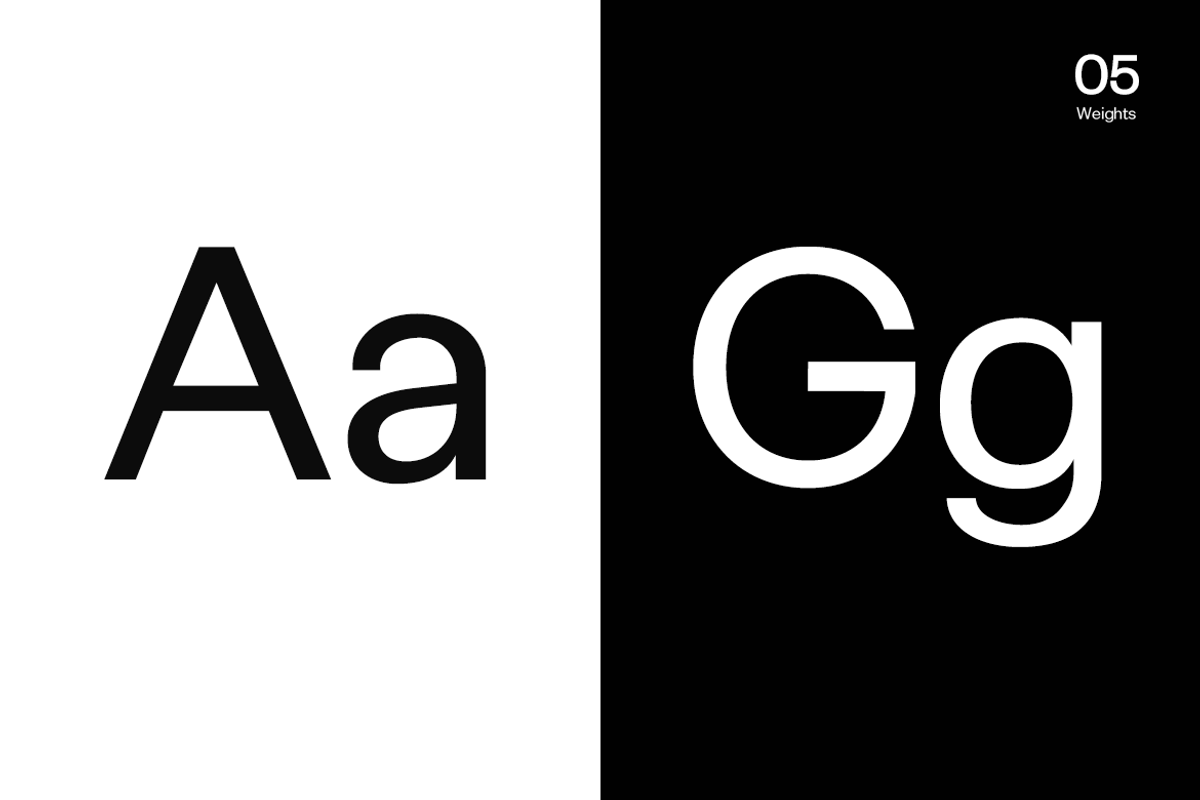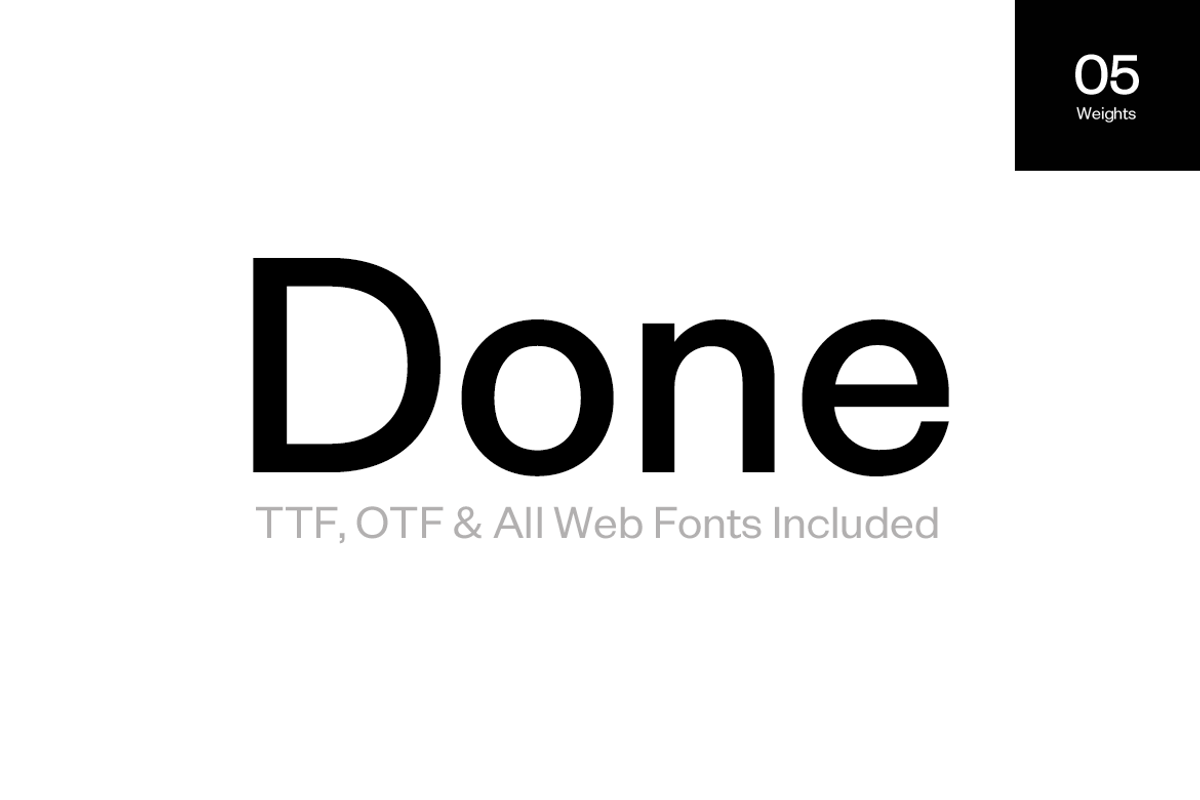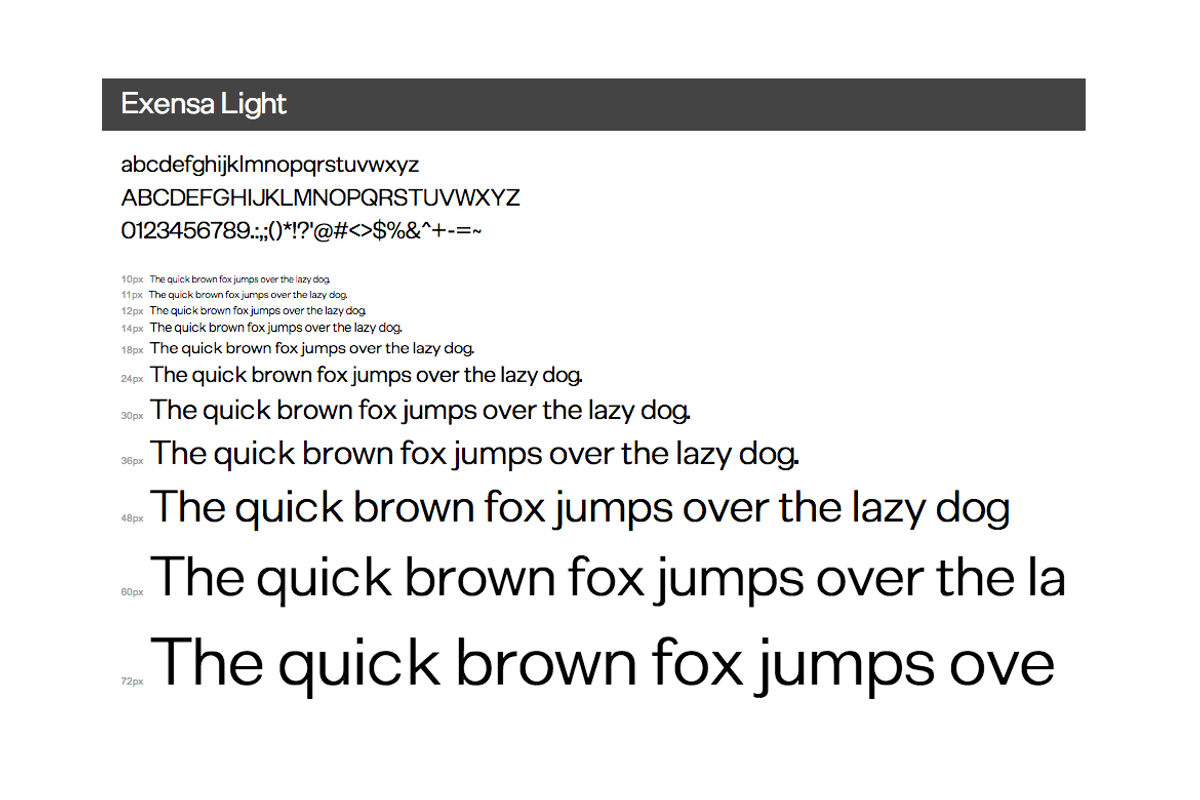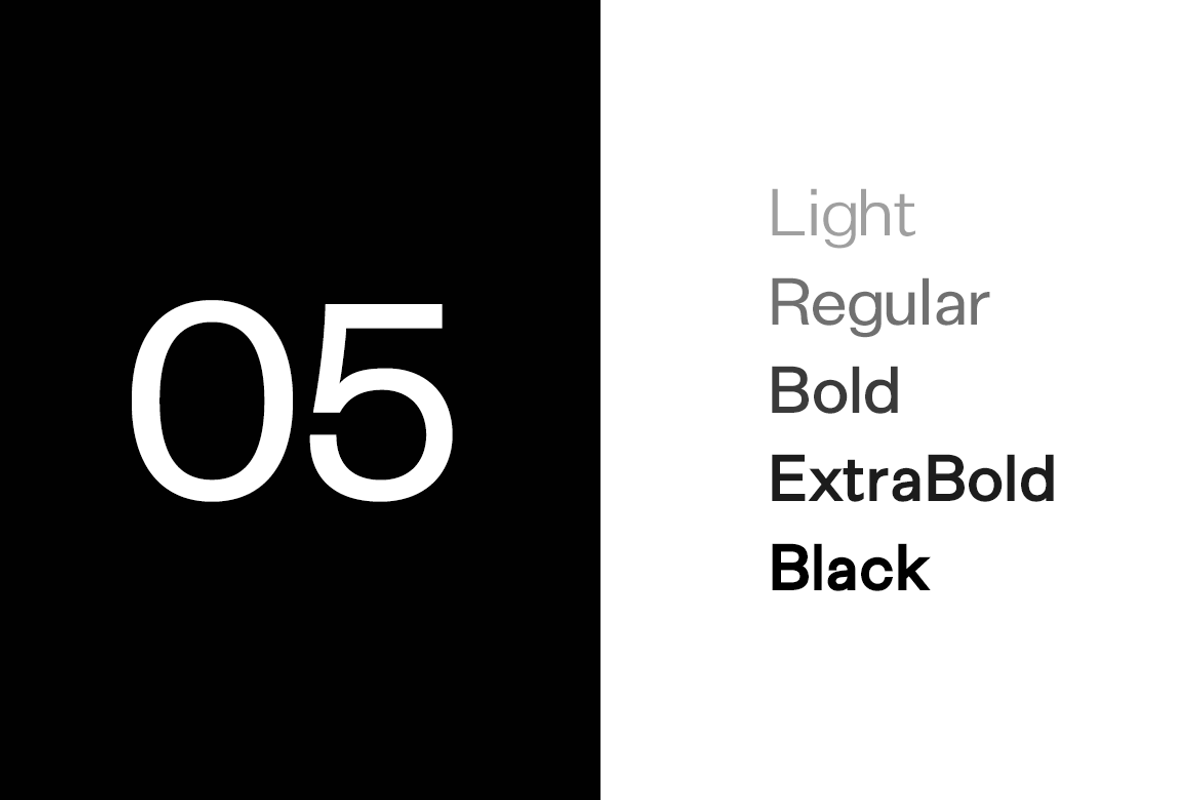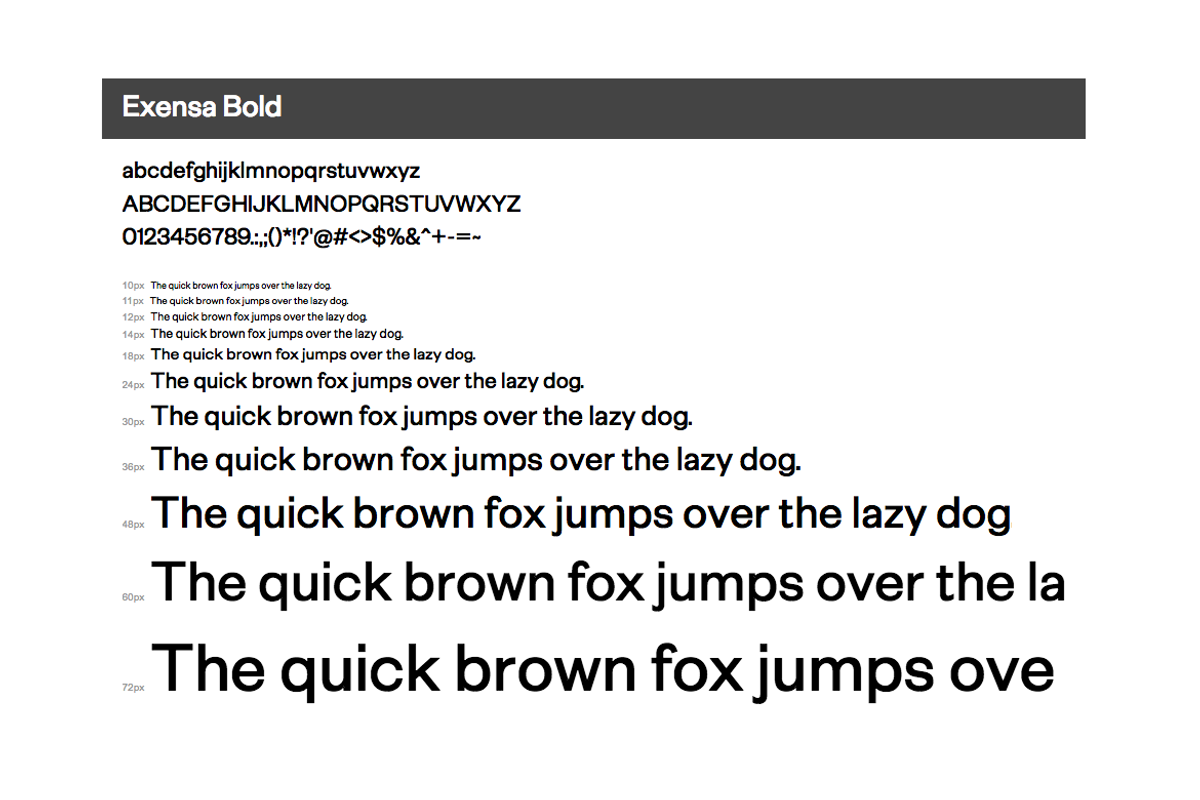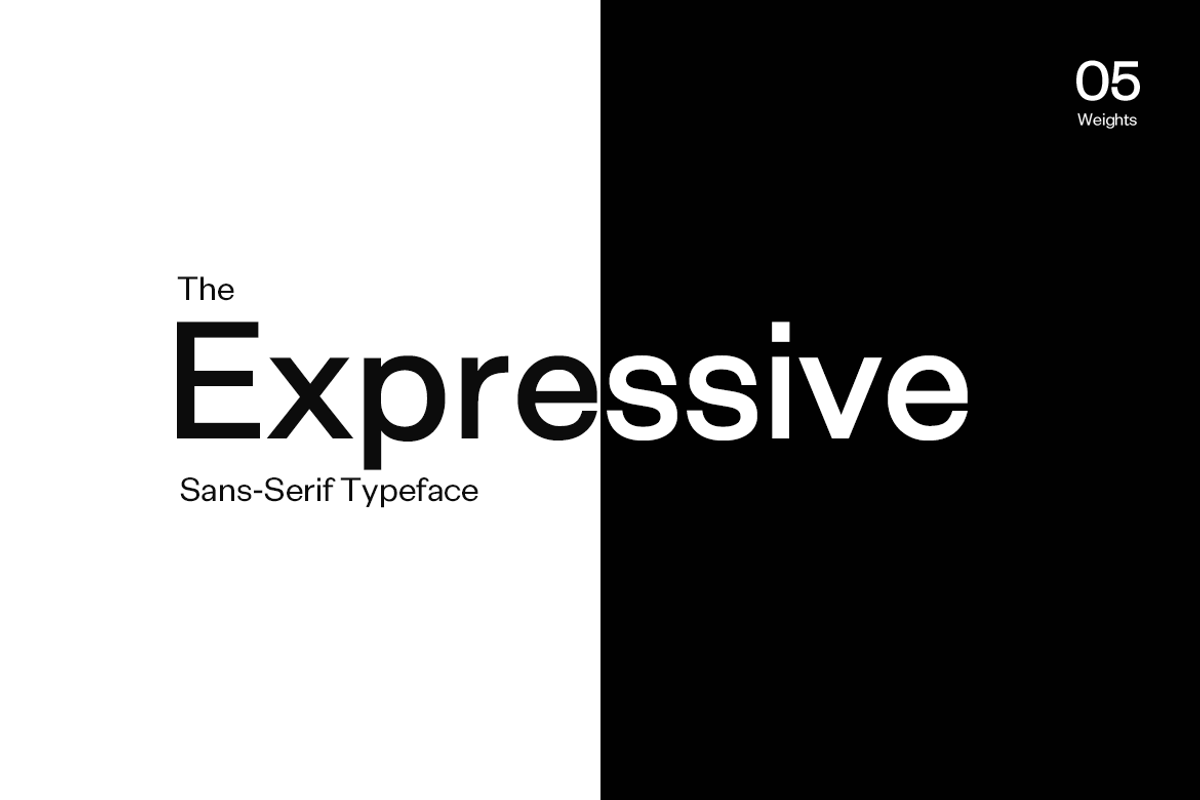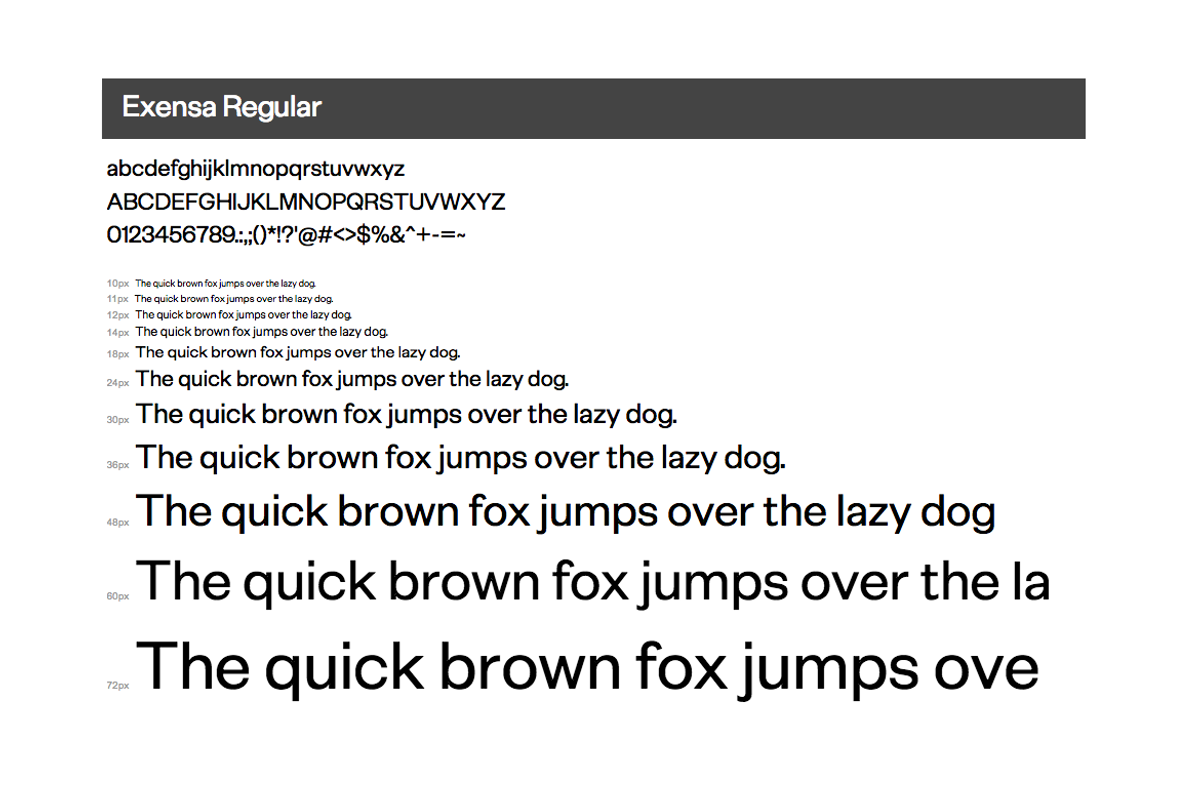
Exensa Grotesk Typeface + Web Fonts
Exensa Grotesk is an authentic Sans Serif typeface inspired by Swiss Design and some of world's most elegant typefaces that keep the expressive nature of a premium font at it's level best. Exensa Grotesk will be best suited to create nicely looking headlines as well as page content. It is your best choice of Sans Serif font for your next project.
Exensa Grotesk features 5 weights (Light / Regular / Bold / Extra Bold / Black) and italic versions of each weight. The pack includes OTF, TTF, and Web Fonts (all EOT, SVG, TTF, WOFF included).
Major Update v2.0 We have added italic versions of each weights. Now the typeface comes with extended language support including Western European & Central European sets. A total of 303 glyphs are included. We have vastly improved the kerning of this typeface.